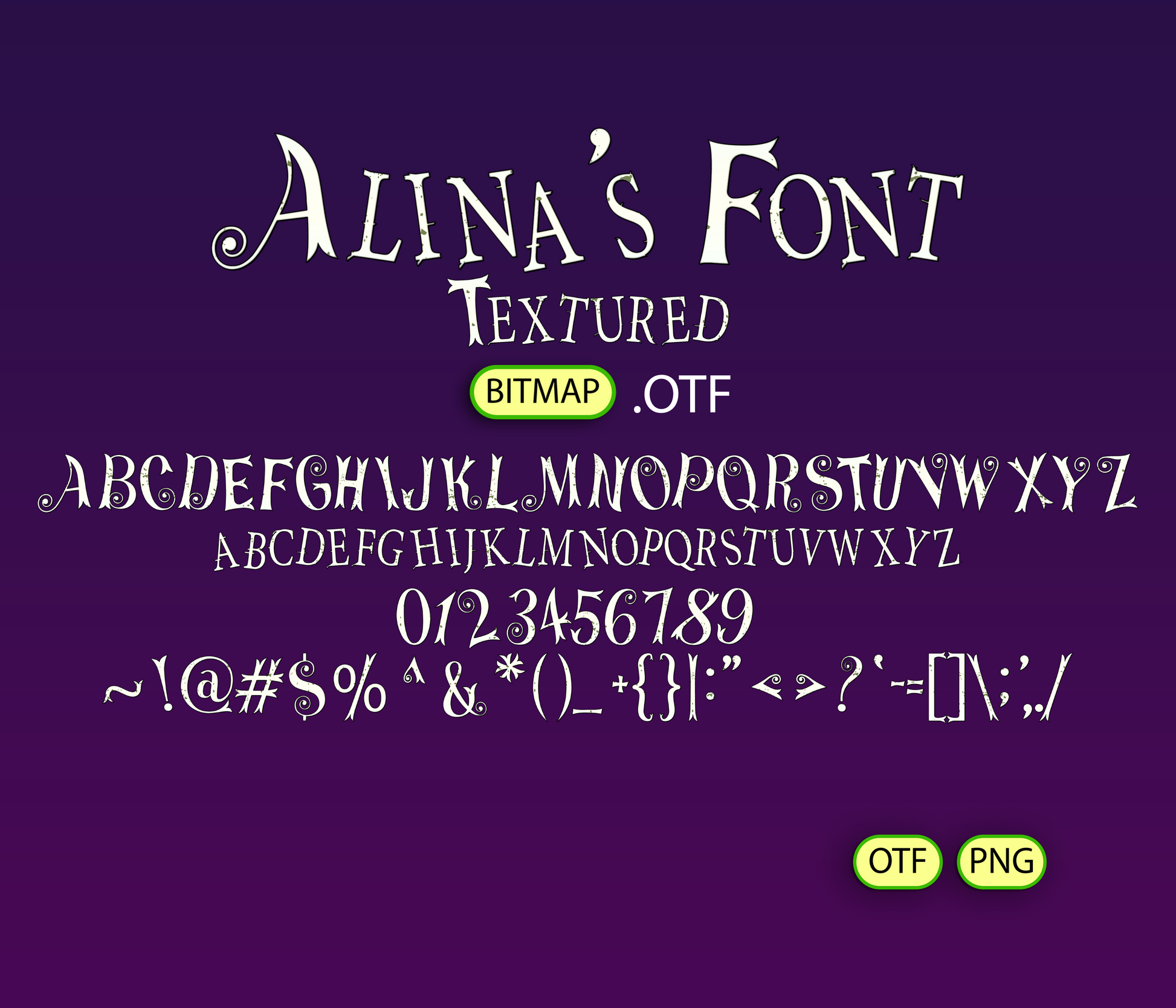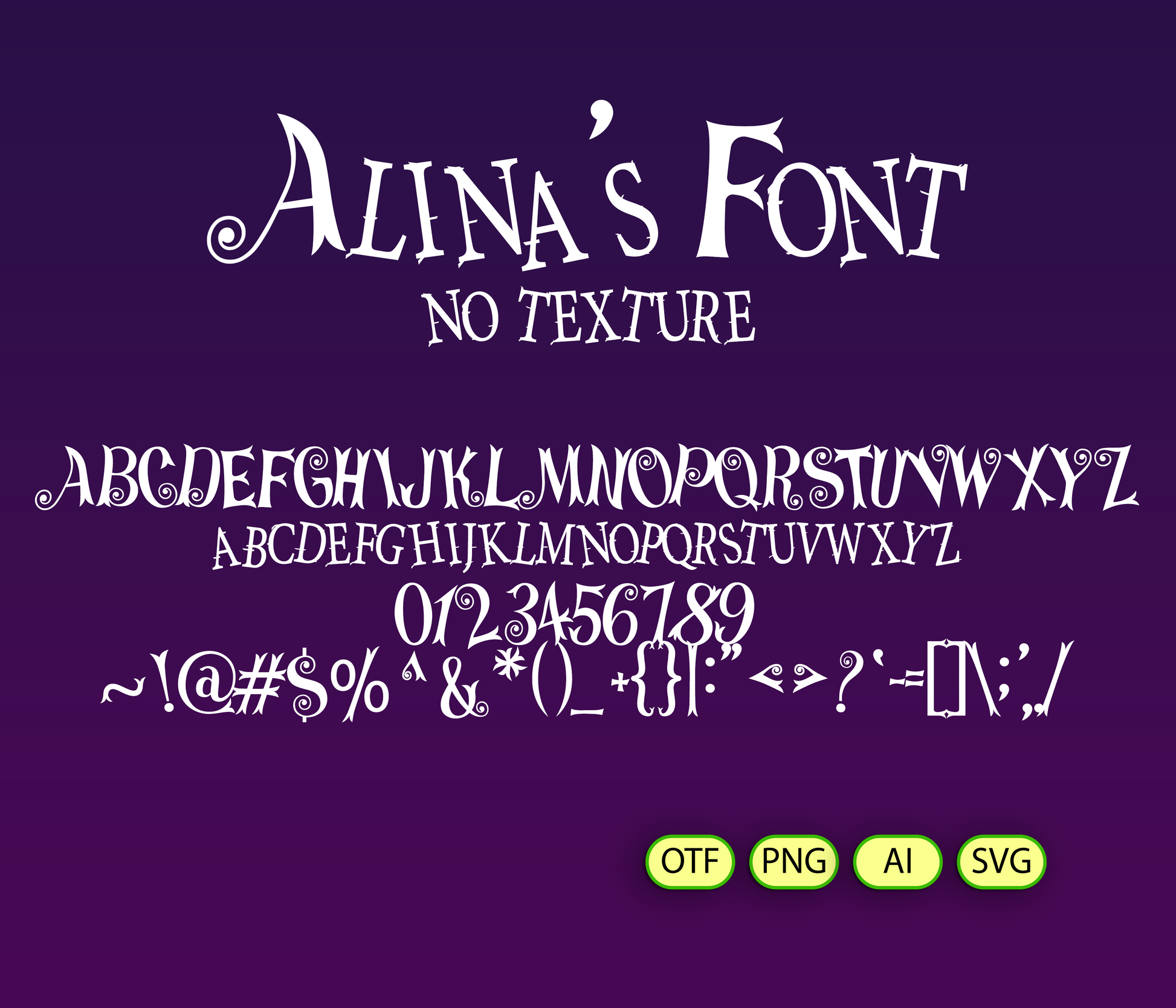
Otherworldly Whimsy Font Textured
Step into the surreal and the strange with Alina's Otherworldly Whimsy Textured Font—a peculiar colored font that takes its cues from a whimsical and macabre netherworld. Designed to thrill and captivate, this font is a must-have for aficionados of the fantastical.
It's a carefully crafted typeface that embodies eerie charm and playful spookiness. Each character is designed with a nod to gothic and whimsical aesthetics, complete with quirky curves and eccentric embellishments. The font features a full set of characters, including alphabets, numbers, and special symbols, making it perfect for a wide range of ghostly creative projects.
Are you a DIY enthusiast with a Cricut machine? Otherworldly Whimsy Textured Font is perfect for all your crafting needs, from creating eerie cake toppers for a themed birthday bash to designing unique wall decals that transport you to another realm. With its twisted and textured characters, your Cricut projects will never be the same again.
Planning a party? The bizarre yet enchanting letters add the perfect touch to your birthday invitations, imbuing them with a sense of otherworldly allure. Create invites that not just inform, but mesmerize!
But don't stop there. This versatile font is an excellent choice for t-shirt designs, evoking the spiraling form of legendary creatures with every letter. Imagine repping your favorite underworld characters in style!
- Creating spooky party decorations
- Designing custom apparel for horror enthusiasts
- Crafting unique greeting cards with a macabre twist
- Making eye-catching social media graphics
- Personalizing Halloween accessories
- Developing themed educational materials
- Designing logos for gothic-inspired businesses
- Creating atmospheric website headers
- Crafting memorable invitations for costume parties
- Adding an eerie flair to DIY craft projects